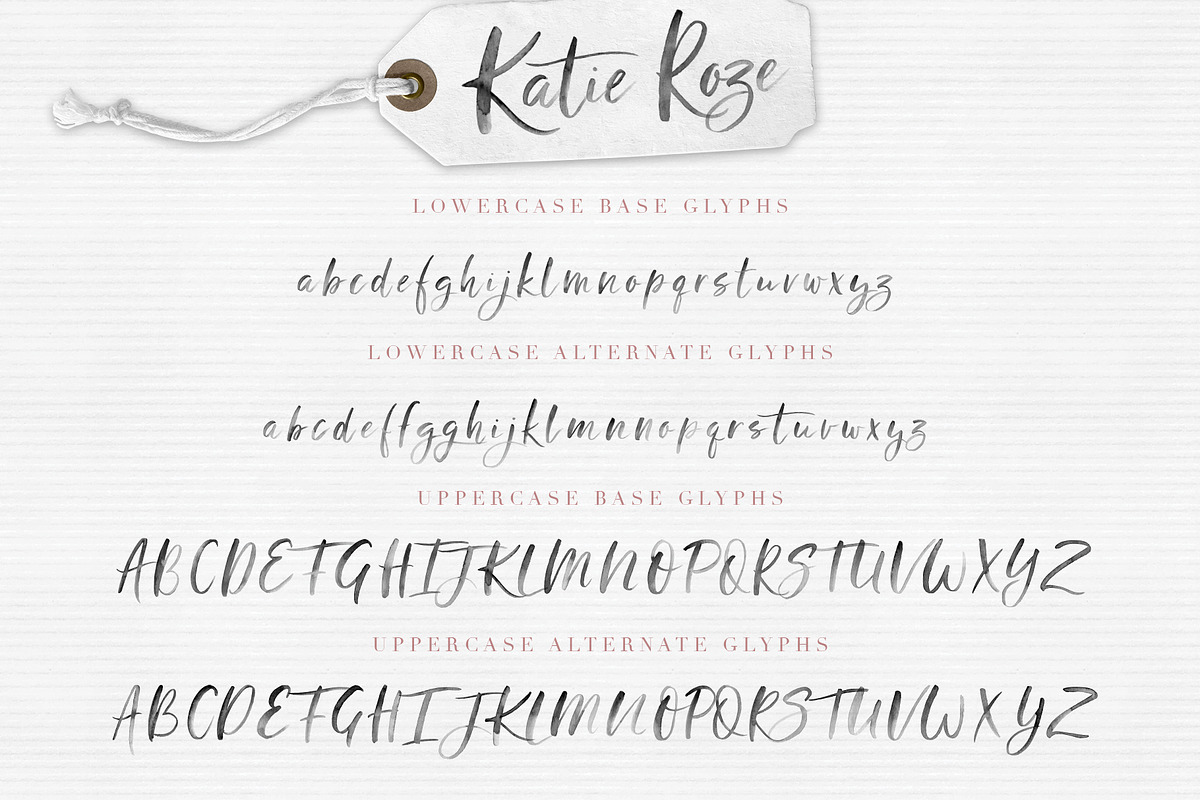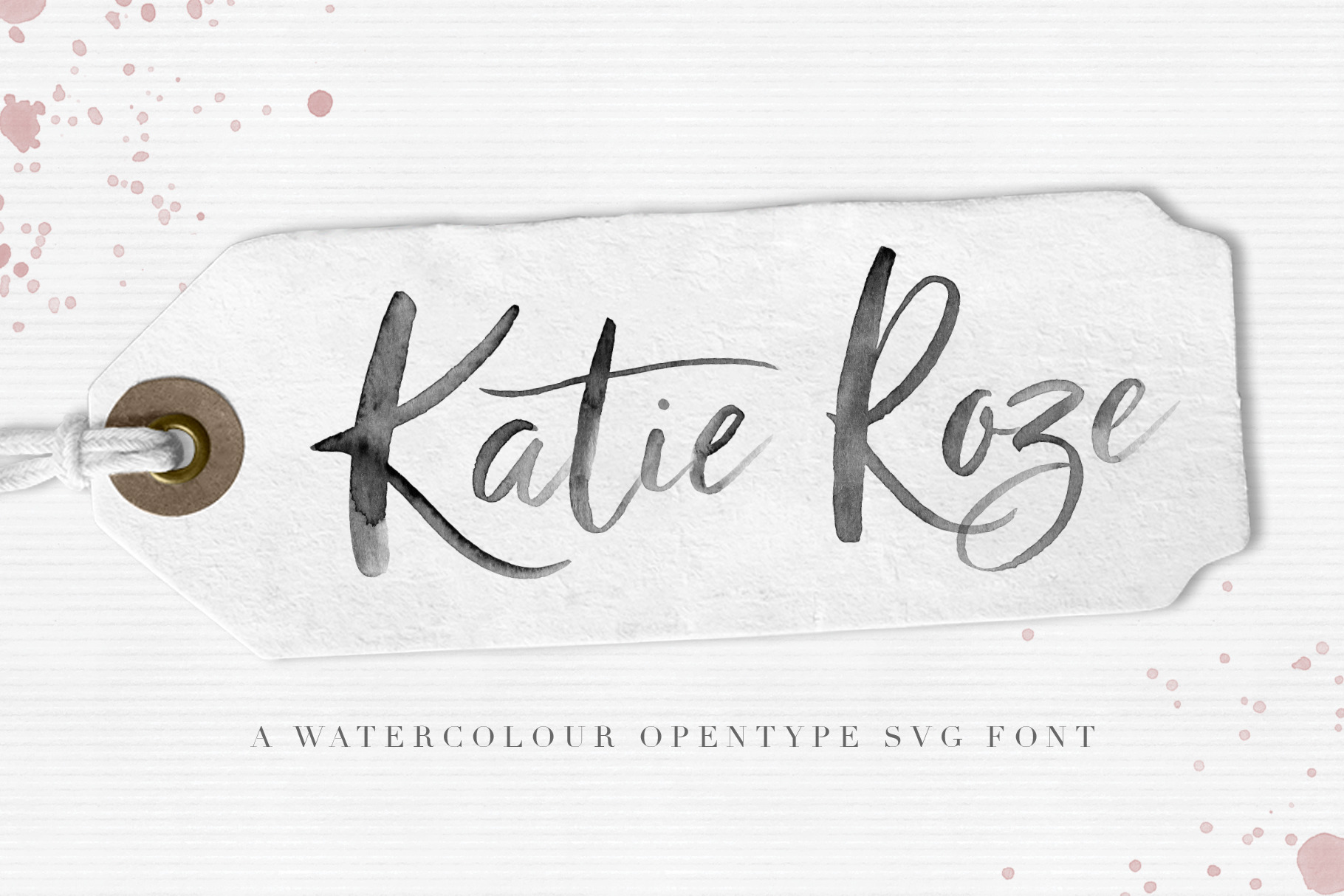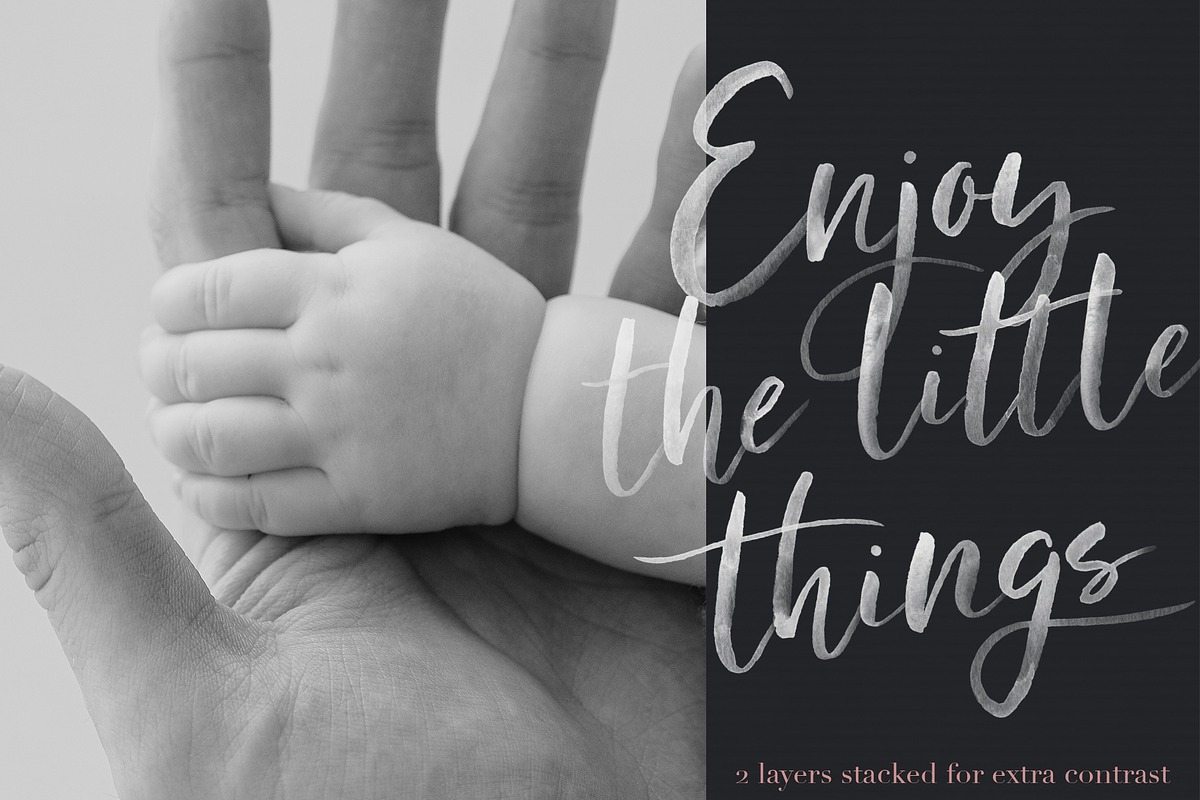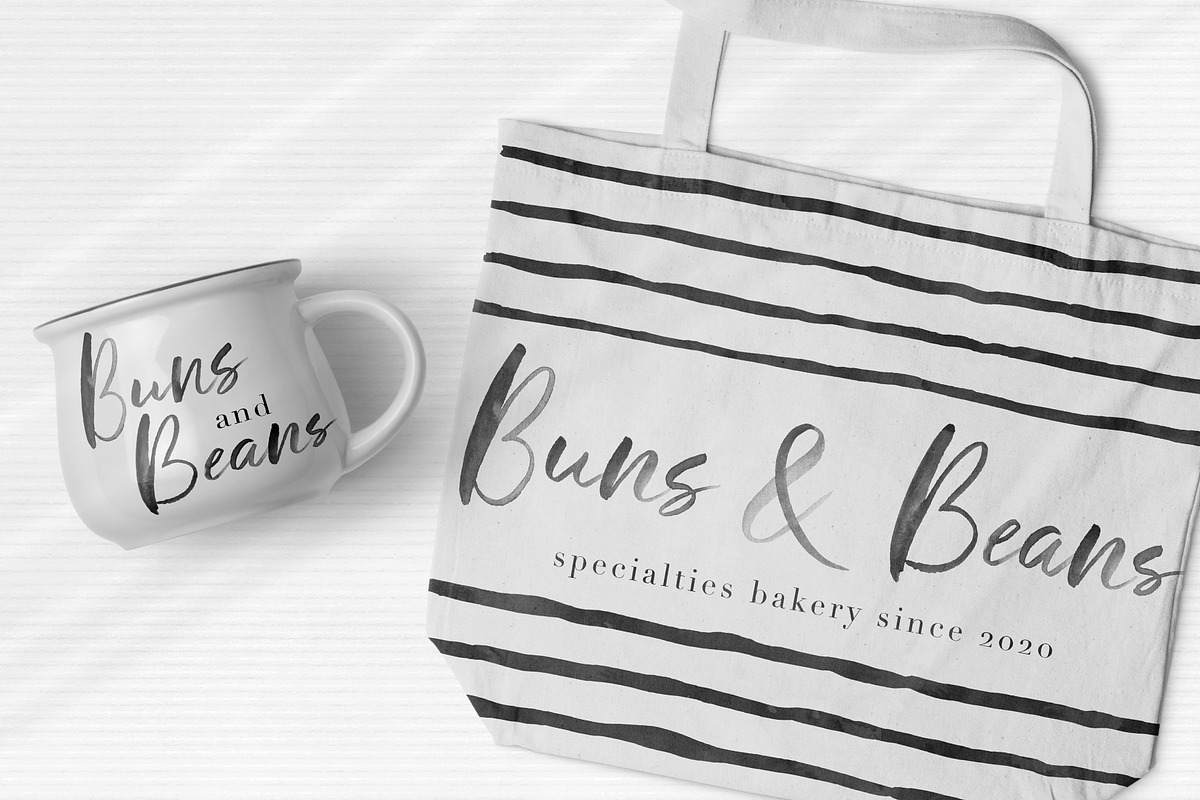
Katie Roze Watercolor Font
Katie Roze Watercolor Opentype SVG Font
Meet Katie Roze, an elegant watercolour font that's very suitable for headers, logo's, social media posts and your other creative projects that can use a flowy touch.
This font has alternates for each glyph and a set of ligatures as well. See the previews and read below on how to acces them manually.